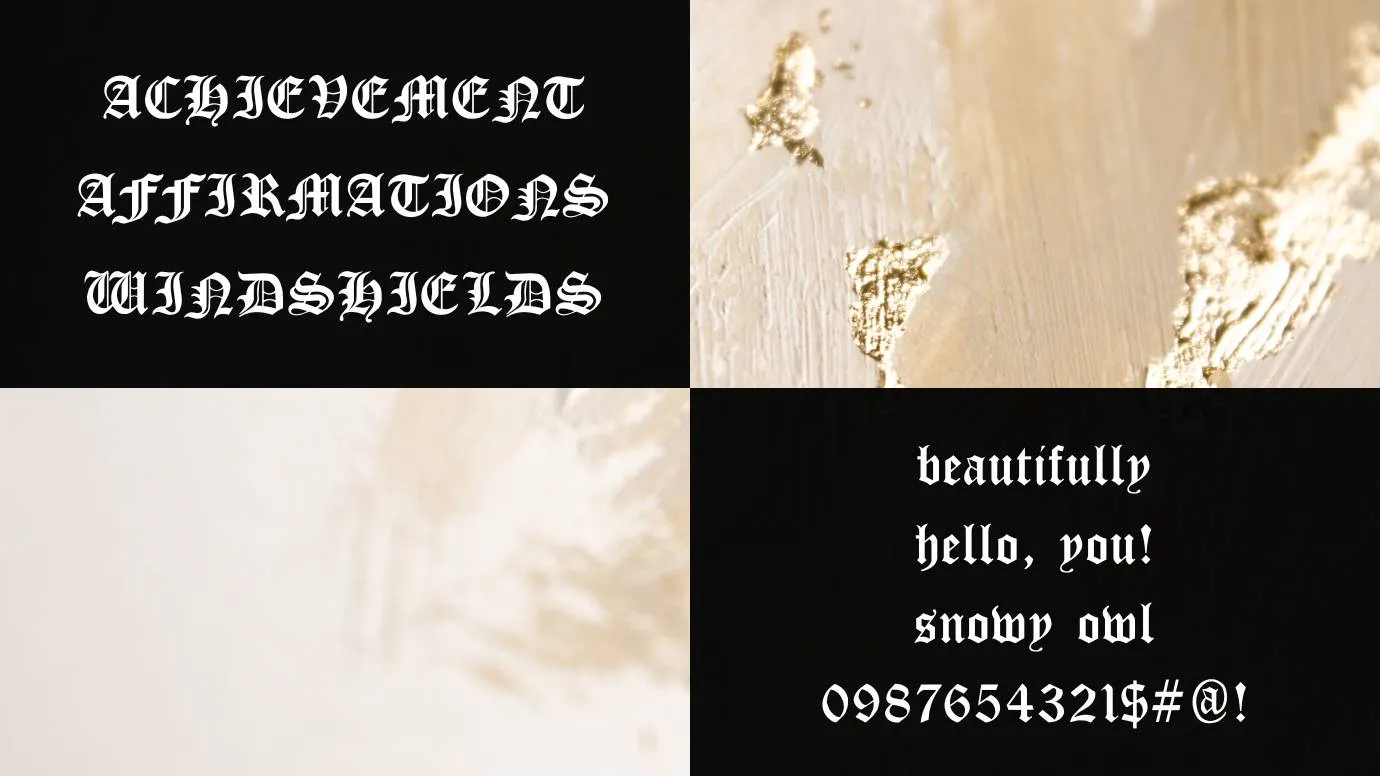
Thug life Font is a popular gothic typeface that was created by Paul Lloyd. This typeface has a very bold and attractive vision. The font texture is not well for documents and any other formal designs, because it has a fancy-based look and little difficult to read in small sizes.
Creator of Thug life Font
This typeface is manufactured by a very notable designer named Paul Lloyd. This typeface is preferred by many designers and users also.
- Thug Life Regular
View of Thug life Font
| Name | Thug life Font |
| Style | Gothic |
| Designer | Paul Lloyd |
Is Thug life a good typeface?
This Font is a good font for anyone looking for a vintage font with a bit of personality. This font is also commonly used for wedding invitations and other stationery.
Why is Thug life font so popular?
The font is popular because it is a fancy-looking font that has been around for many years.
What is the character set of Thug life typeface?
The character set of this font includes all the basic Latin characters, as well as accented characters. The font also includes numbers and punctuation.